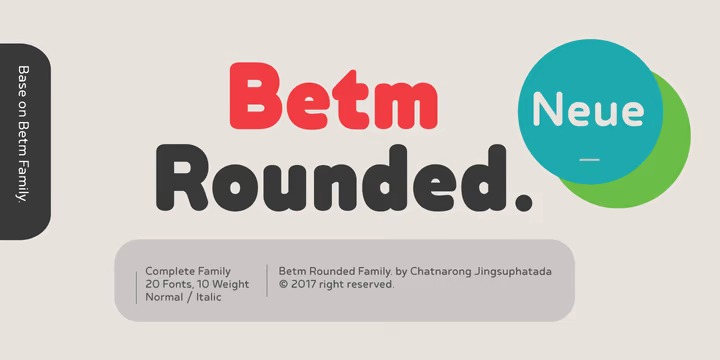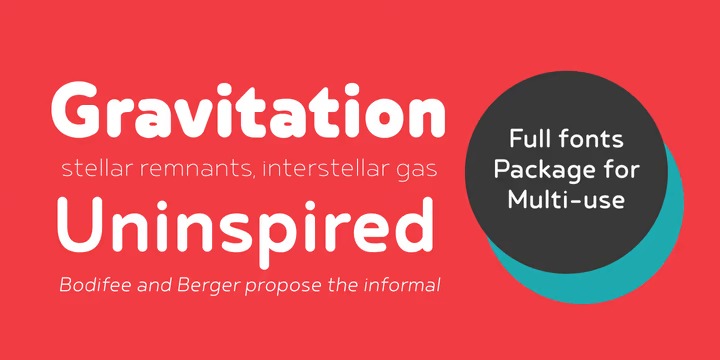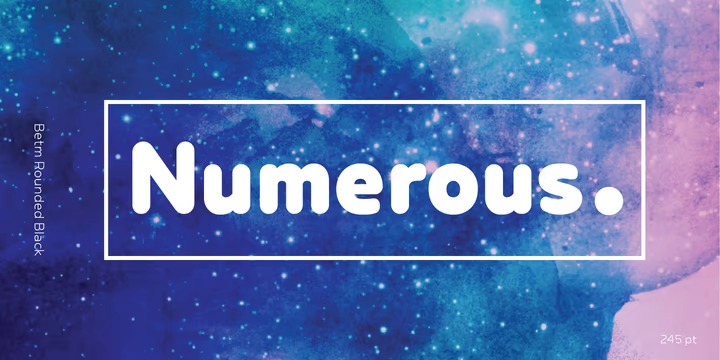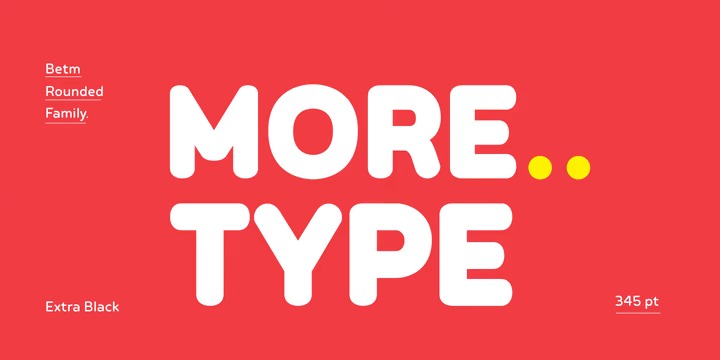
Betm Rounded Sans Serif Font
It’s a san-serif font based on geometric patterns with humanist elements. Font designer Chatnarong Jingsuphatada created Betm as a Rounded version to Betm. Both type families consist of ten weights plus with italic versions.
Betm’s typeface has a friendly and modern sans serif appearance. This modern geometric font is very legible and can be used for headlines as well as small and long text.